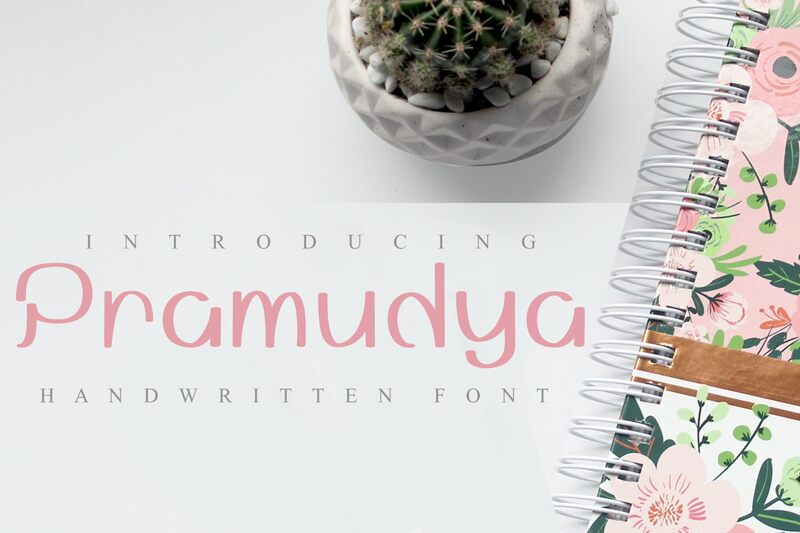
Pramudya font family designed by Kong Font is a free script font that consists of two visual styles. Both styles portray a casual and friendly appearance that evokes a warm and modern feel with an impressively gentle finish. The irregular handwritten style the font embraces makes it approachable to readers and a versatile choice to designers.
Pramudya is perfect for logotype design, greeting cards, signage and banners, books and magazine covers, branding, social media content, advertising, and posters. Use it for menus and food packaging, or in displaying quotes and motivational phrases.